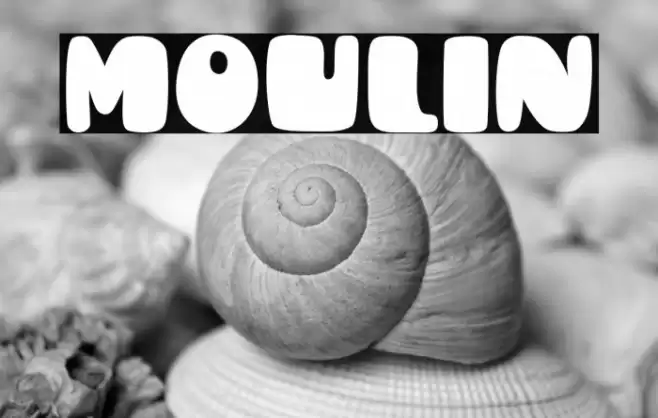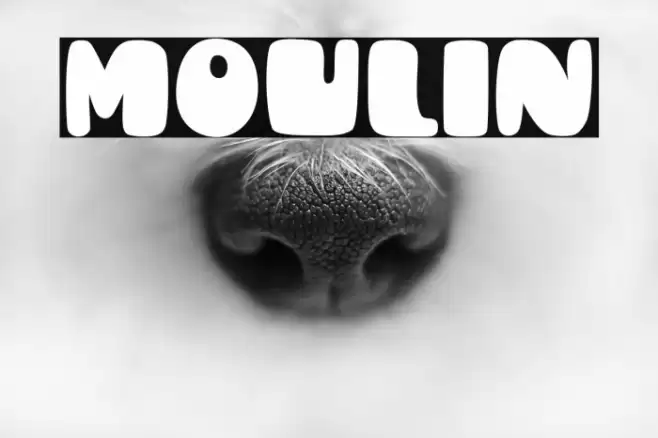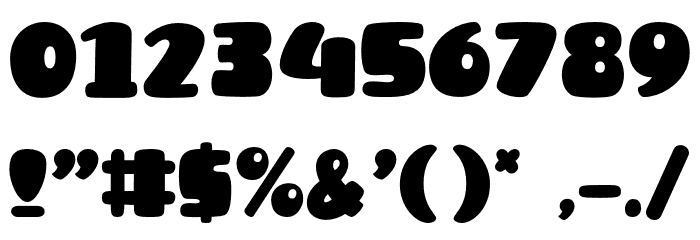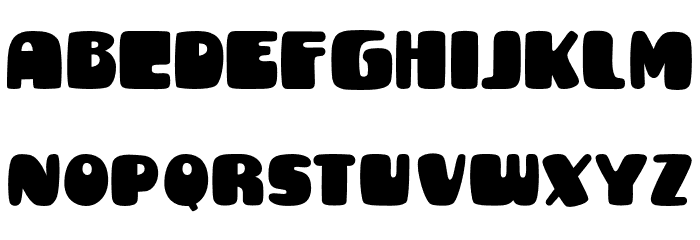
Moulin Font
Moulin Description
This font features bold, rounded characters with a playful and friendly appearance. The letters are uniformly thick, giving them a strong presence on the page. The rounded edges and lack of sharp angles contribute to a soft, approachable look. The characters are evenly spaced, ensuring readability while maintaining a cohesive visual style. This font is ideal for designs that require a fun and engaging aesthetic, such as children's books, playful branding, or event posters. The numbers and special characters maintain the same rounded, bold style, ensuring consistency across all text elements.
A bold, rounded font with a playful and friendly appearance from Cartoon fonts.
- Font: Moulin
- Proposed Projects: Ideal for children's books, playful branding, event posters, and any design requiring a fun aesthetic.
- Overall Style: Playful